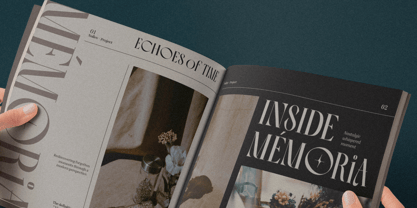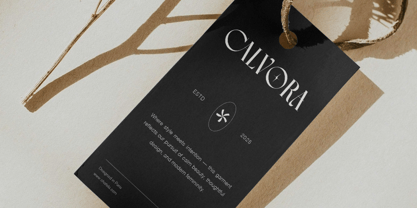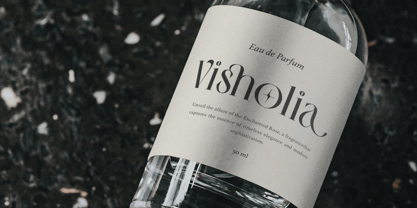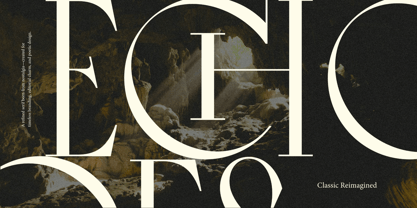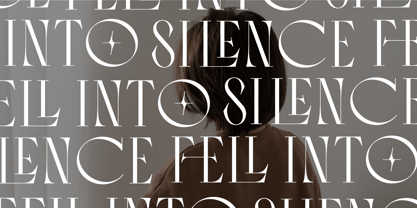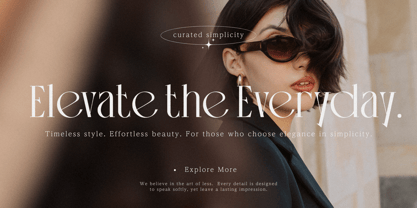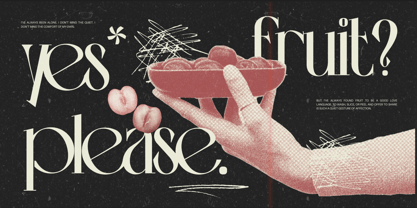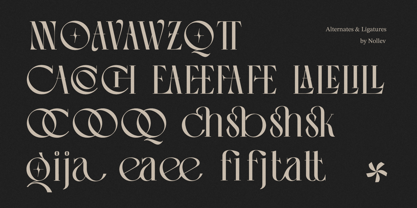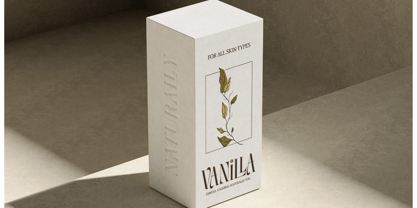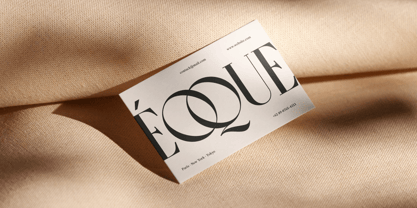
Vingico Display
by Nollev
The Vingico Display Font Family was designed by Akhmad Hidayat and published by Nollev. Vingico Display contains 6 styles and family package options.
Vingico is a modern high-contrast serif typeface with a luxurious and elegant feel. Designed for branding, editorial, packaging, and fashion-related projects, it brings sophistication to any visual.
Vingico features six styles: Regular, Bold, ExtraBold, and matching Italics. Its sharp serifs, refined curves, and strong contrast make it perfect for headlines, logos, and display use.
For a clean and contemporary look, pair Vingico with minimalist sans-serifs to create visual balance and hierarchy.